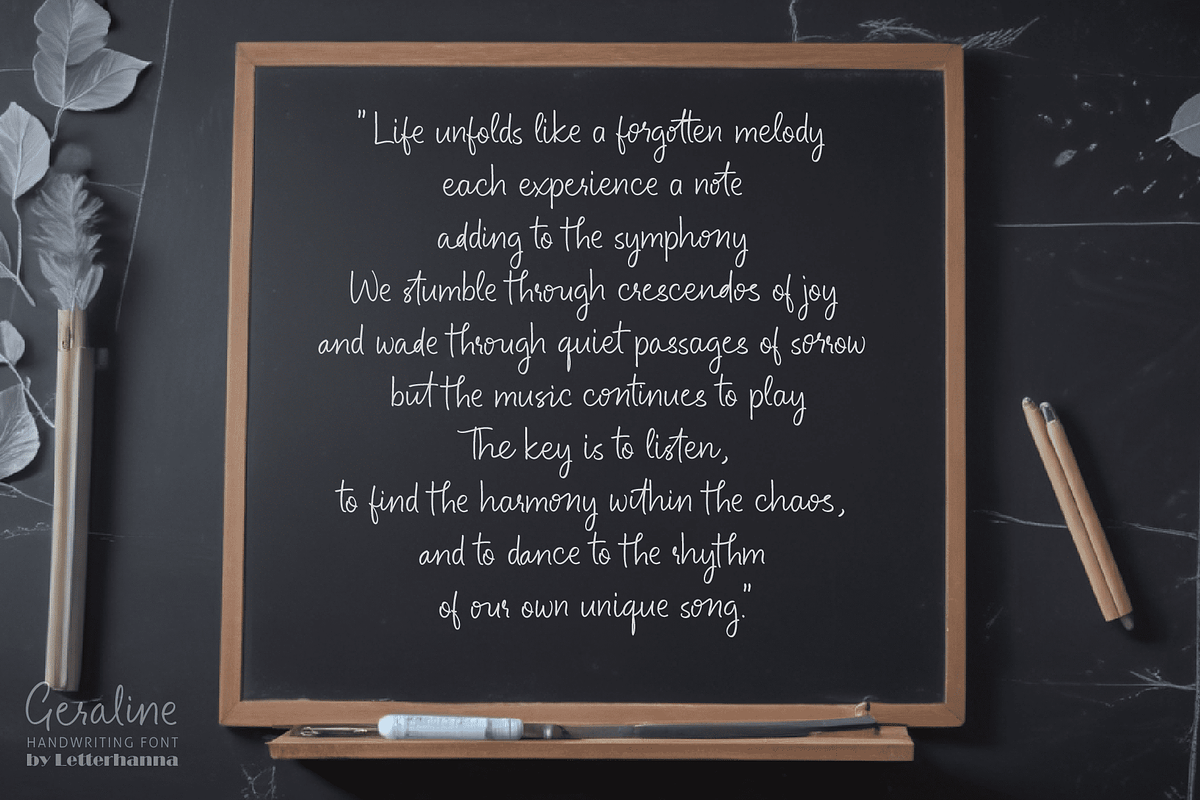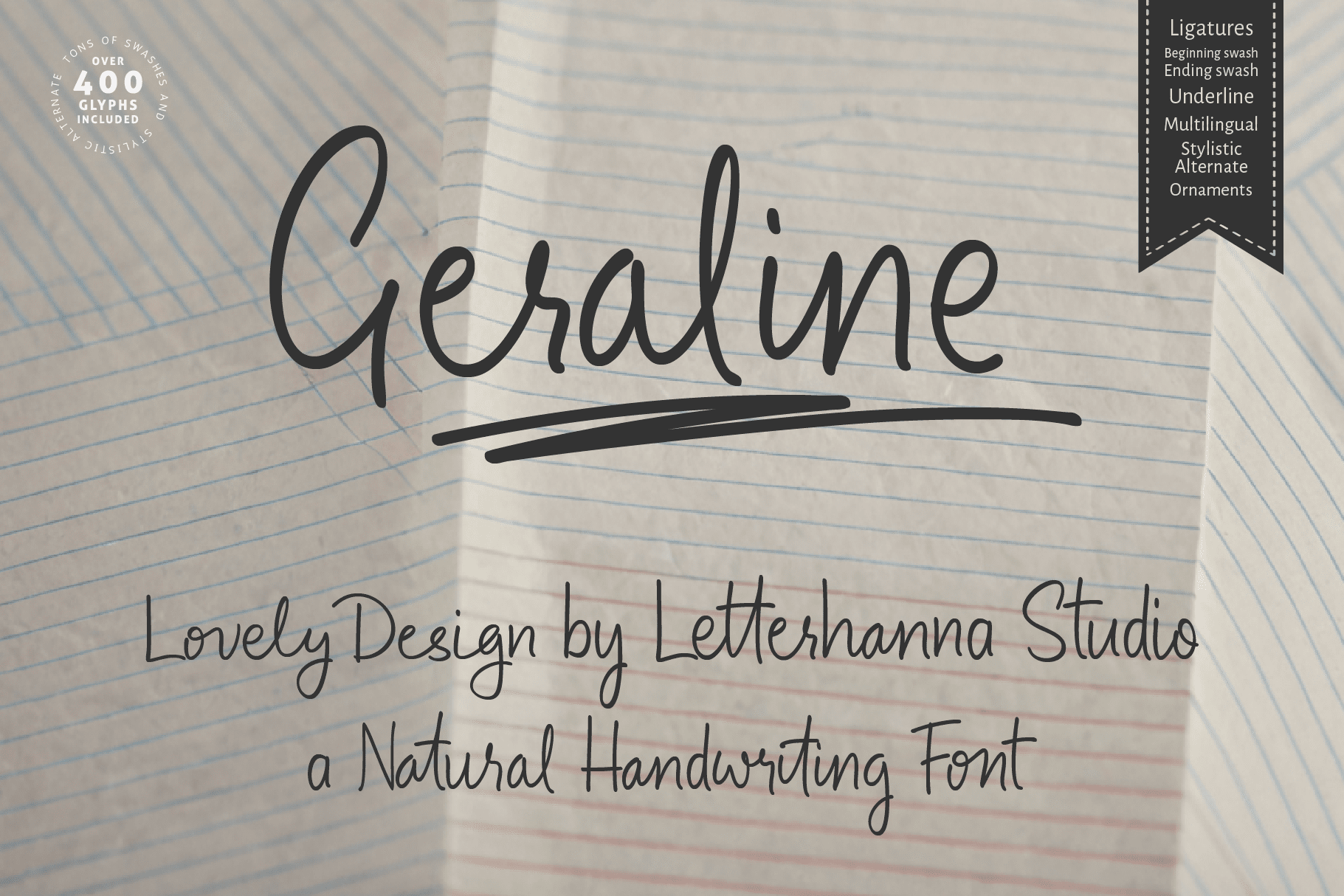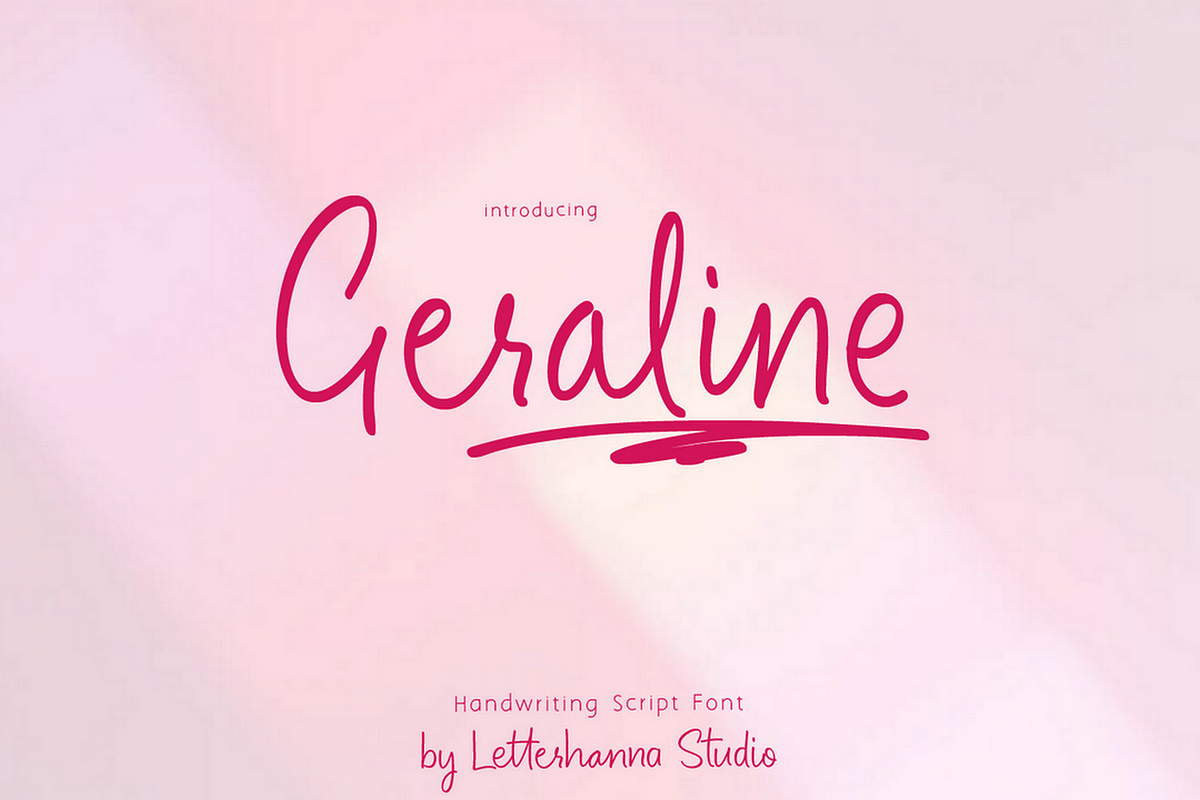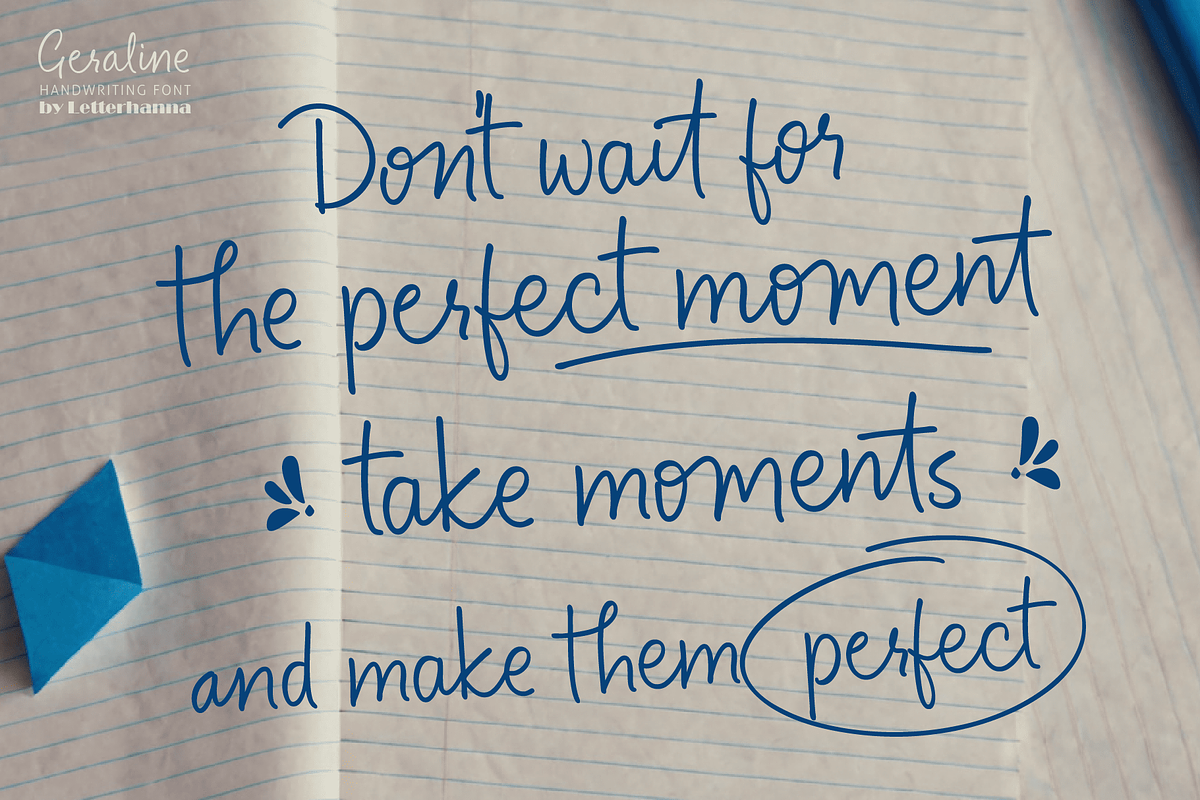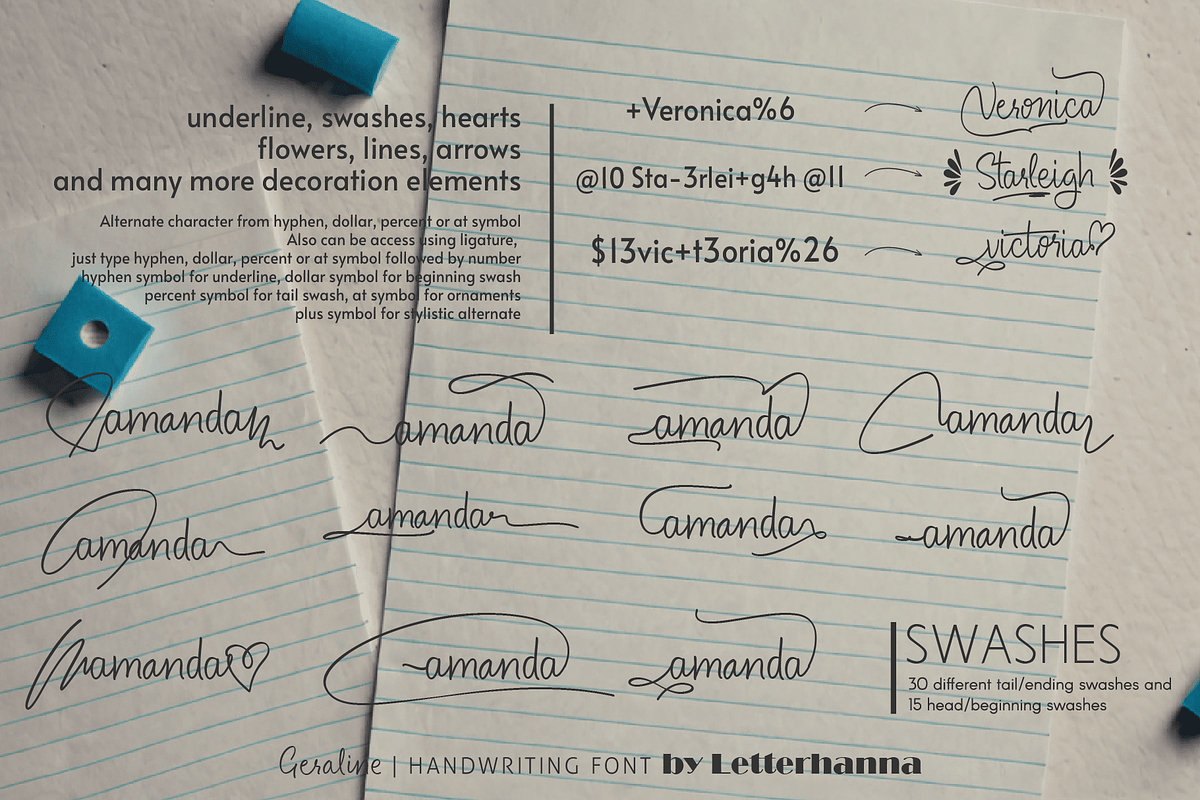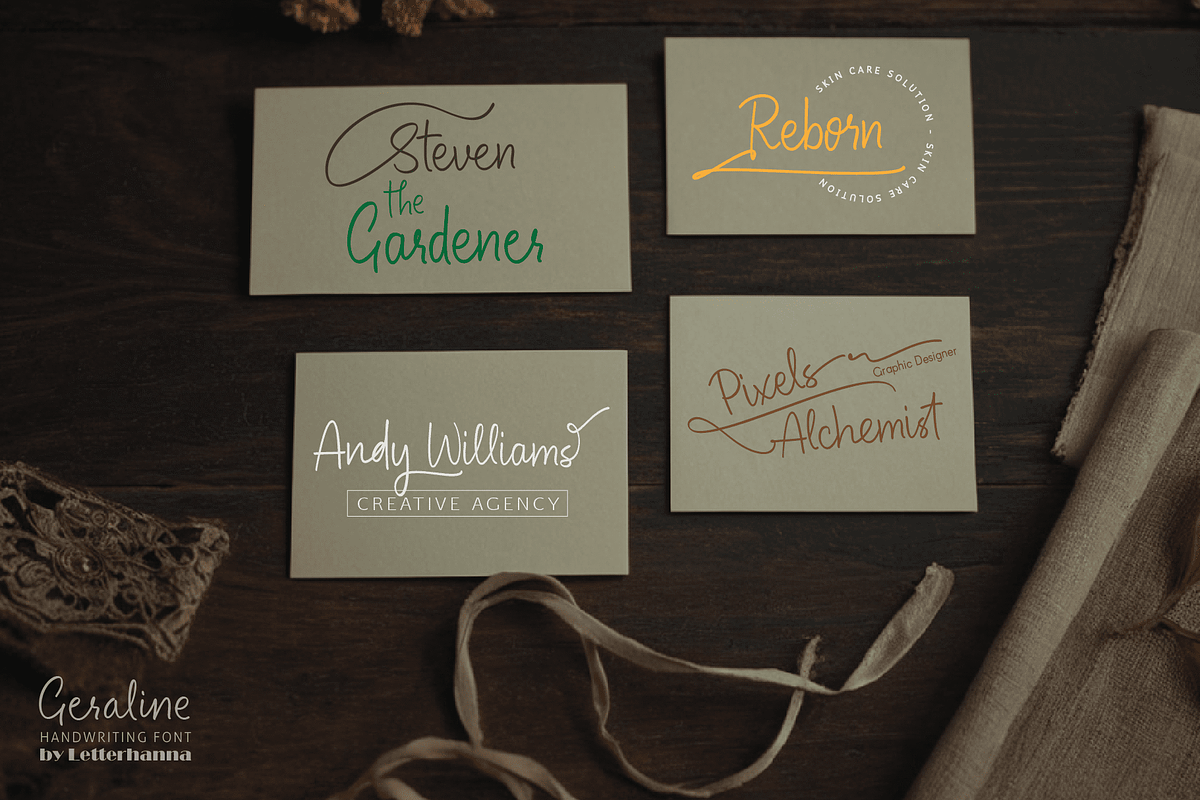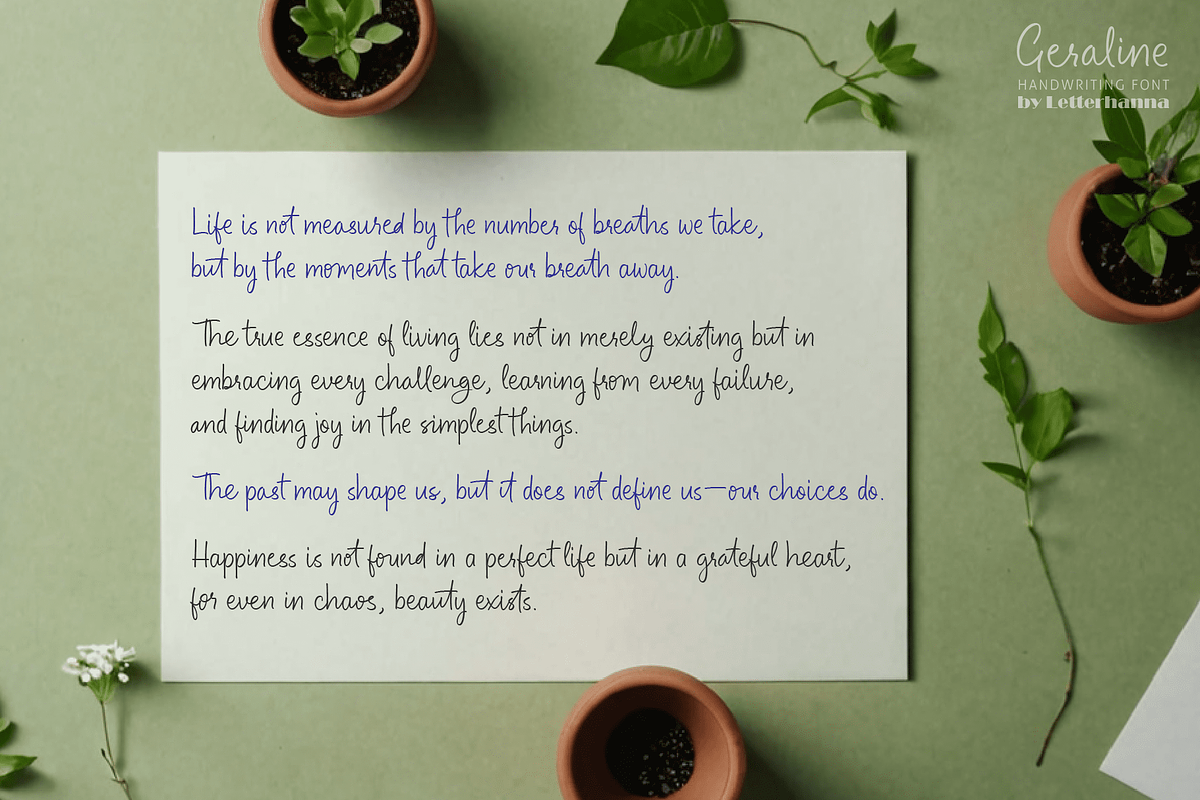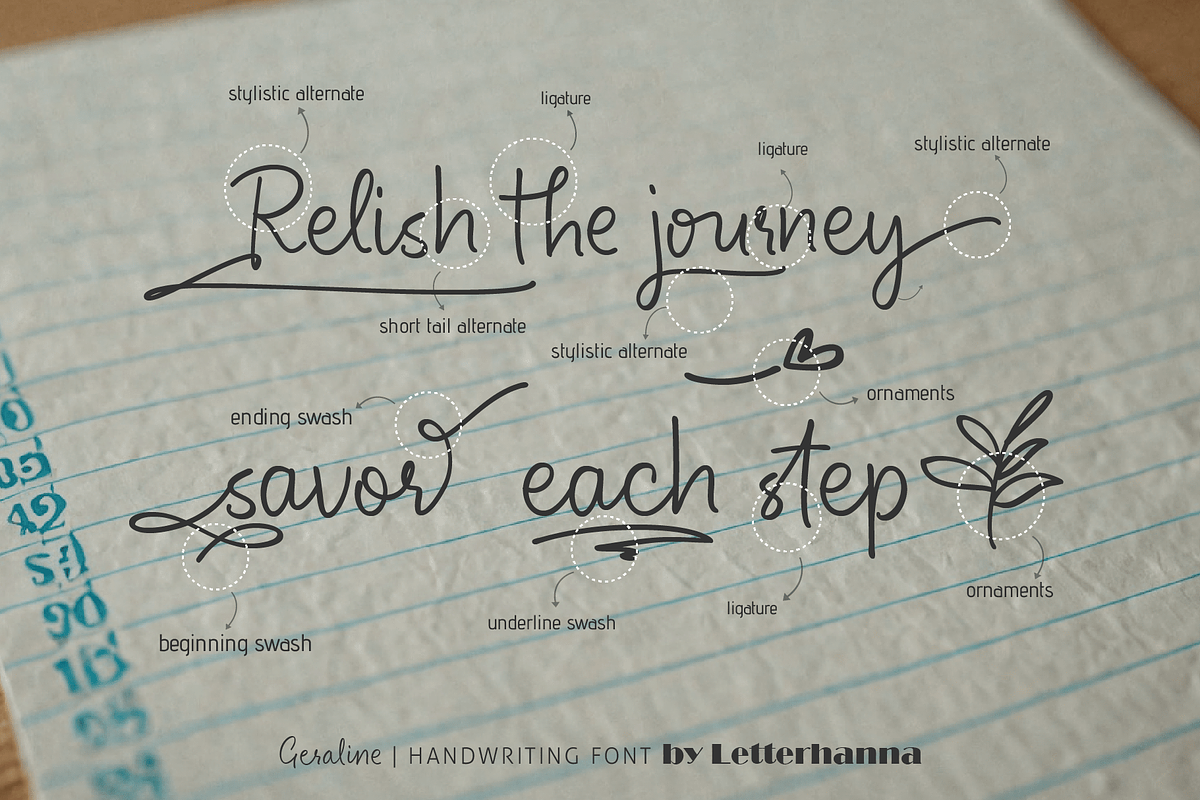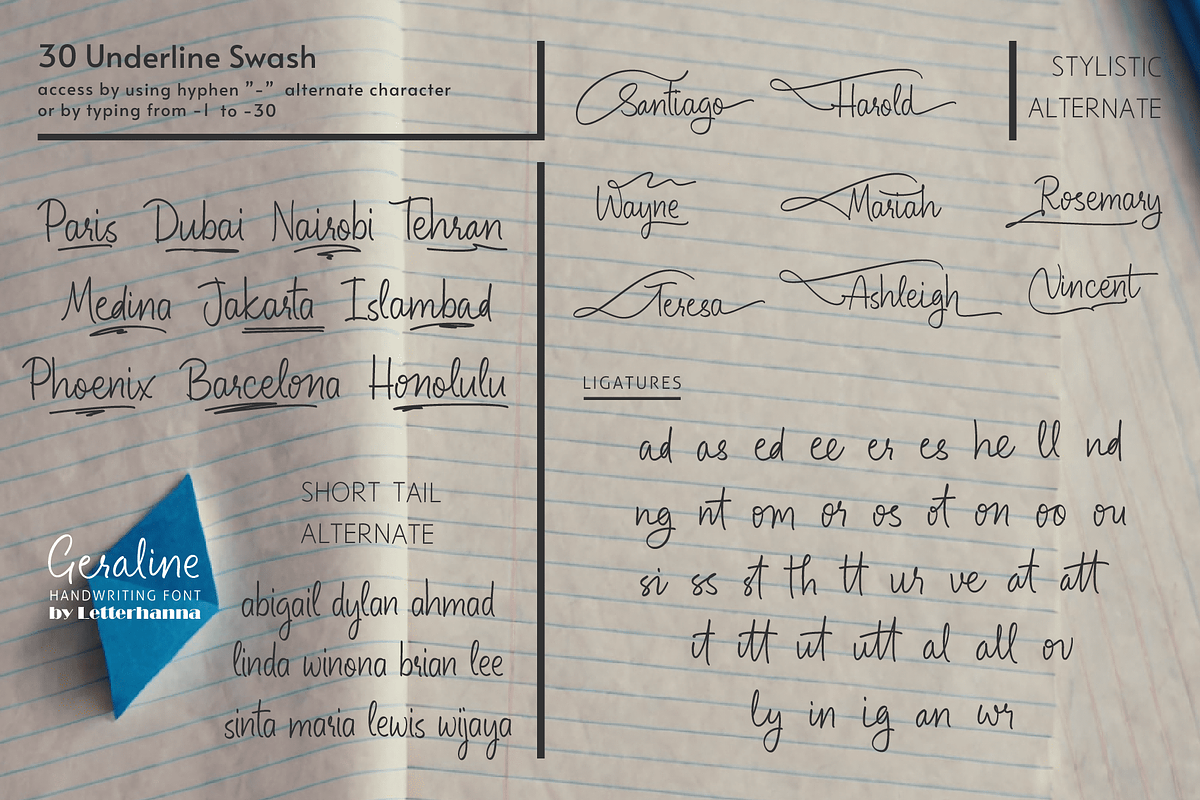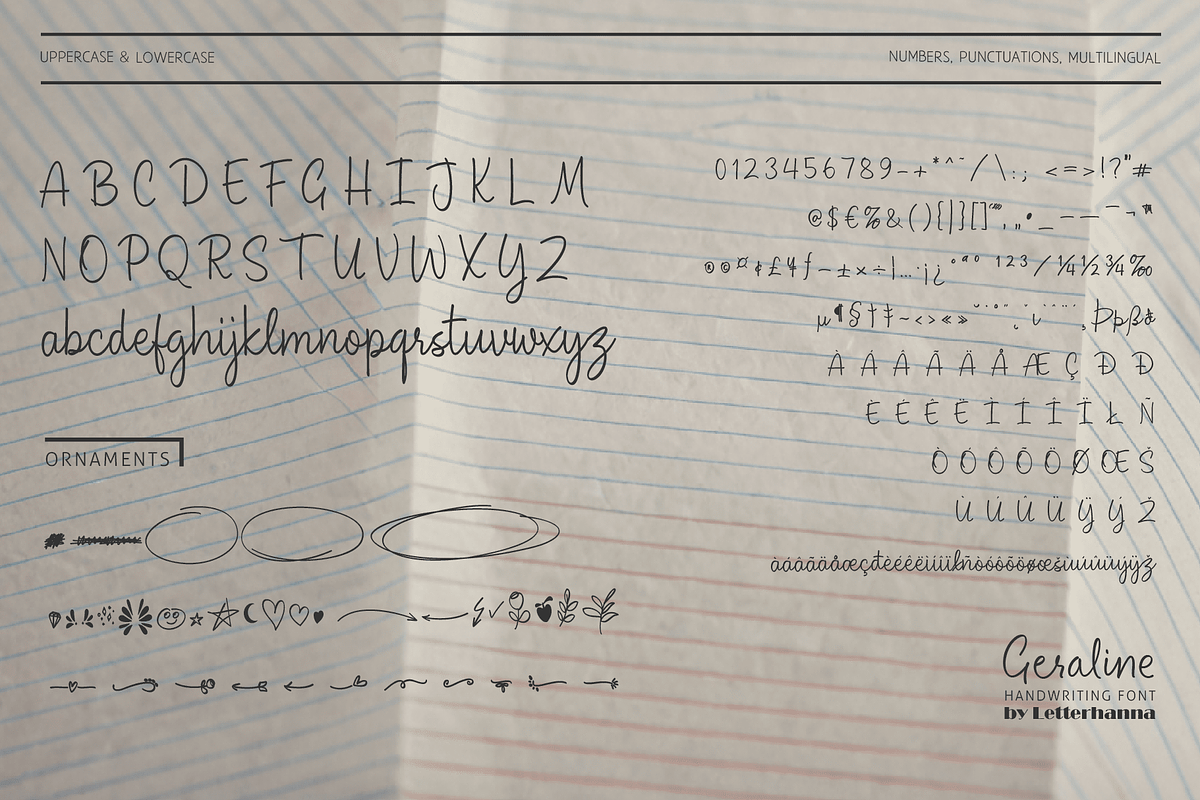
Geraline Font
Geraline is a beautifully crafted handwriting script font that mimics the fluidity and charm of natural pen strokes on paper. With its organic flow and smooth curves, this font exudes warmth and authenticity, making it perfect for projects that require a personal and elegant touch. Whether you're designing wedding invitations, branding materials, or heartfelt quotes, Geraline adds a sophisticated yet approachable feel to your typography.
This font is packed with stylistic alternates, swashes, and ligatures, giving you endless creative possibilities to customize each letter with flair. The dynamic strokes and graceful letterforms ensure a seamless and artistic appearance, making every word feel truly handwritten. Geraline is a must-have for designers looking to bring a handwritten, personal, and effortlessly stylish aesthetic to their work.
Easy Access to Glyphs and Swashes
Accessing Swashes and Ornaments
Underline Swashes: Use a hyphen symbol "-" followed by a number between 1 and 30. For example, type "-3", "-22", or "-17" to get various underline swashes.
Head/Beginning Swashes: Use a dollar sign "$" followed by a number between 1 and 9. For example, type "$2" or "$8" to get different head/beginning swashes.
Tail/Ending Swashes: Use a percent sign "%" followed by a number between 1 and 30. For example, type "%3" or "%15" to get various tail/ending swashes.
Ornaments: Use an "at" symbol "@" followed by a number between 1 and 26. For example, type "@4" or "@13" to get different ornaments.
Uppercase and lowercase letters
Numbers and punctuation marks
Beginning and ending swashes
Underline swashes
Ornaments
Easy access to swashes using ligatures